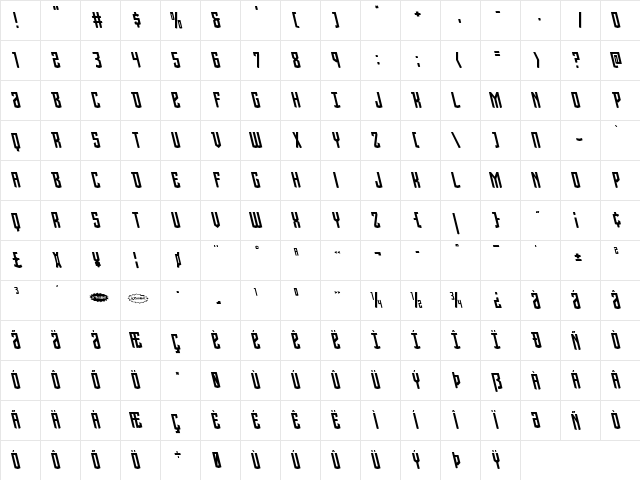
Viceroy of Deacons Leftalic Italic
Design Context for Viceroy of Deacons Leftalic Typeface
Viceroy of Deacons Leftalic is a composed and adaptable typeface that performs quietly and consistently across a wide range of design contexts. The slanted form adds forward momentum and visual energy.
Pro Tip: Try Viceroy of Deacons Leftalic for annotation and caption copy alongside an upright companion — the contrast in angle creates a dynamic but ordered typographic system.